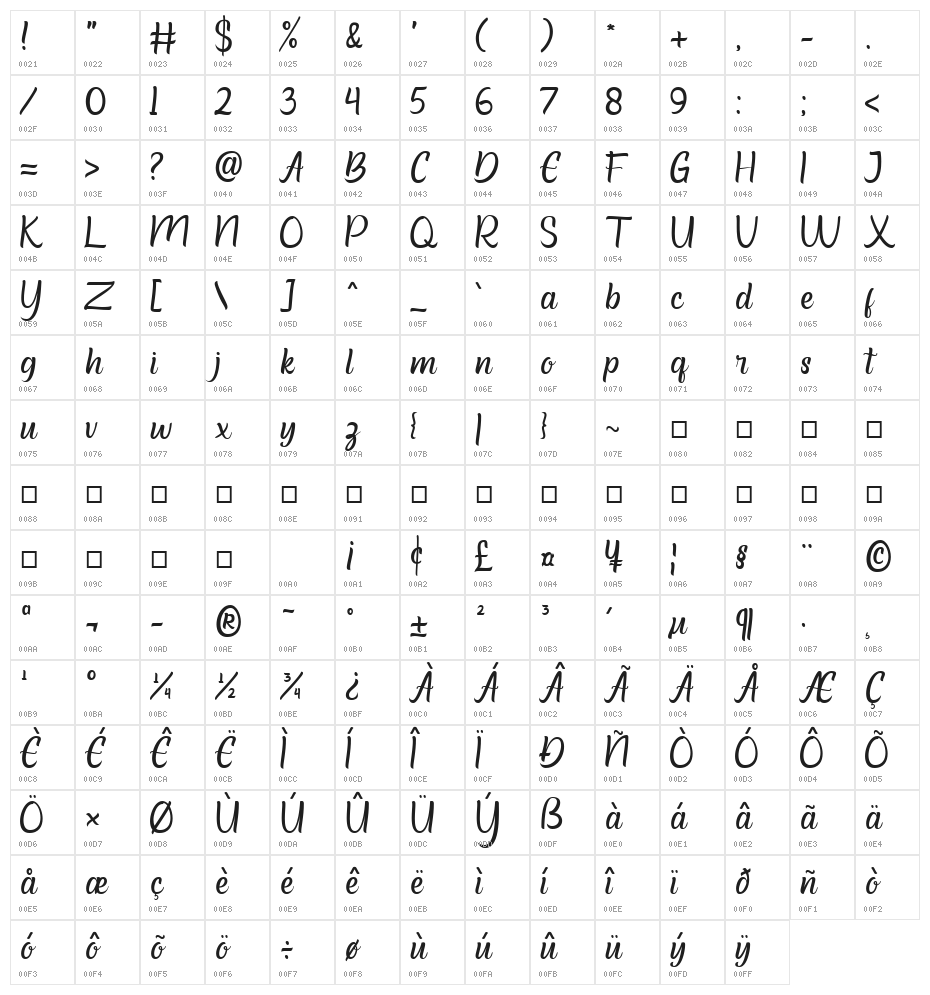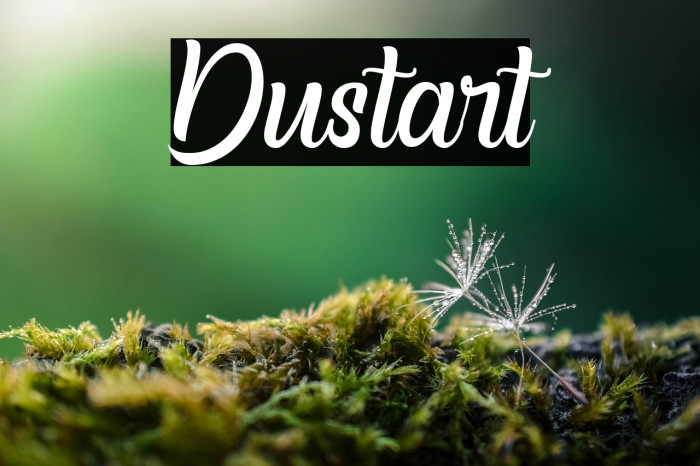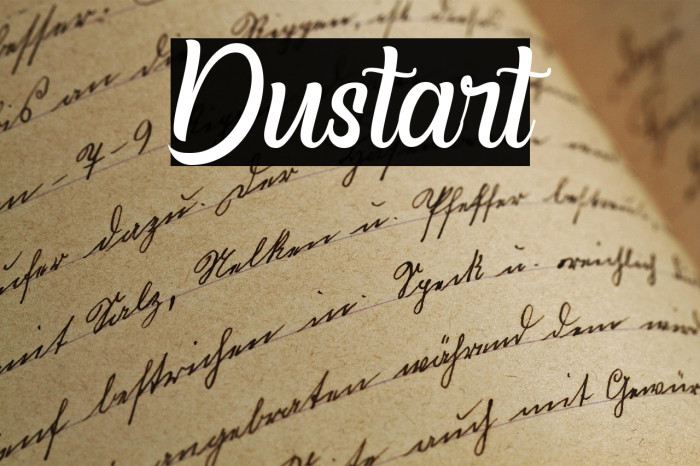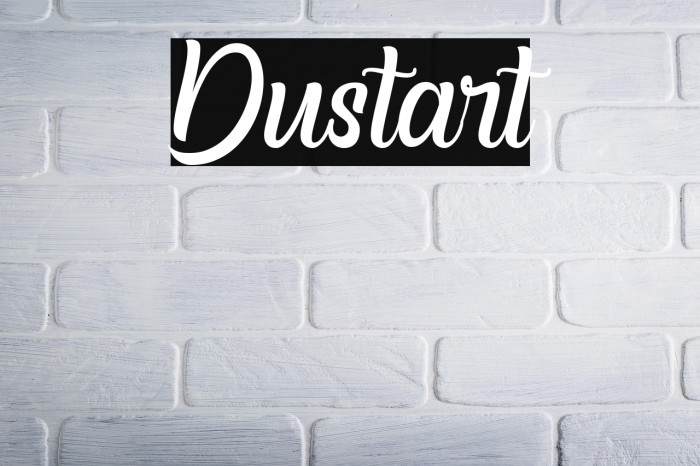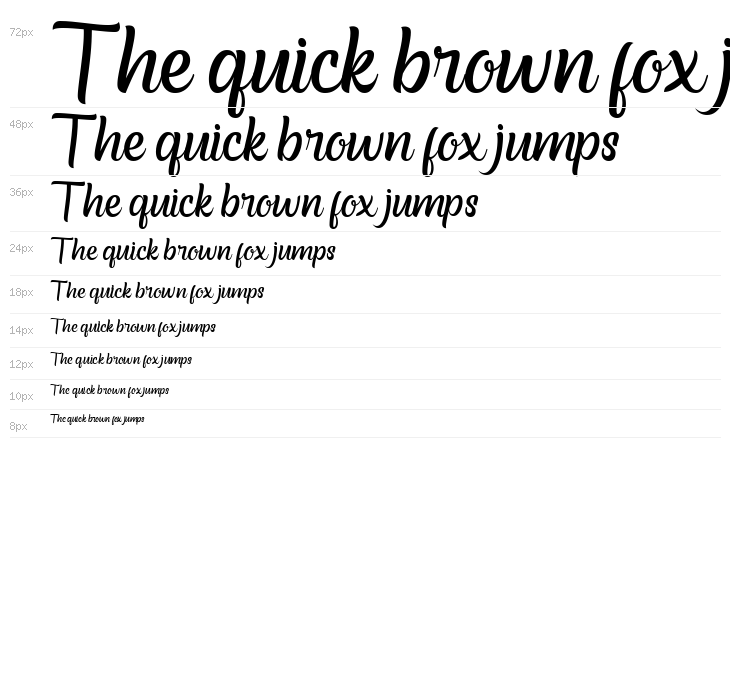
Dustart Font
Dustart Description
This font features a lively and dynamic script style, characterized by its fluid and connected strokes. The uppercase letters exhibit a playful yet elegant flair, with varying stroke widths that add a sense of movement and energy. The lowercase letters maintain a cohesive flow, enhancing readability while preserving the font's artistic nature. Numbers and special characters are crafted with the same attention to detail, ensuring consistency across all elements. This font's unique style makes it suitable for creative and expressive design projects.
| Use Case | Logos, Invitations, Artistic projects |
| Proposed Projects | Ideal for invitations, greeting cards, branding, and artistic projects that require a personal touch. |